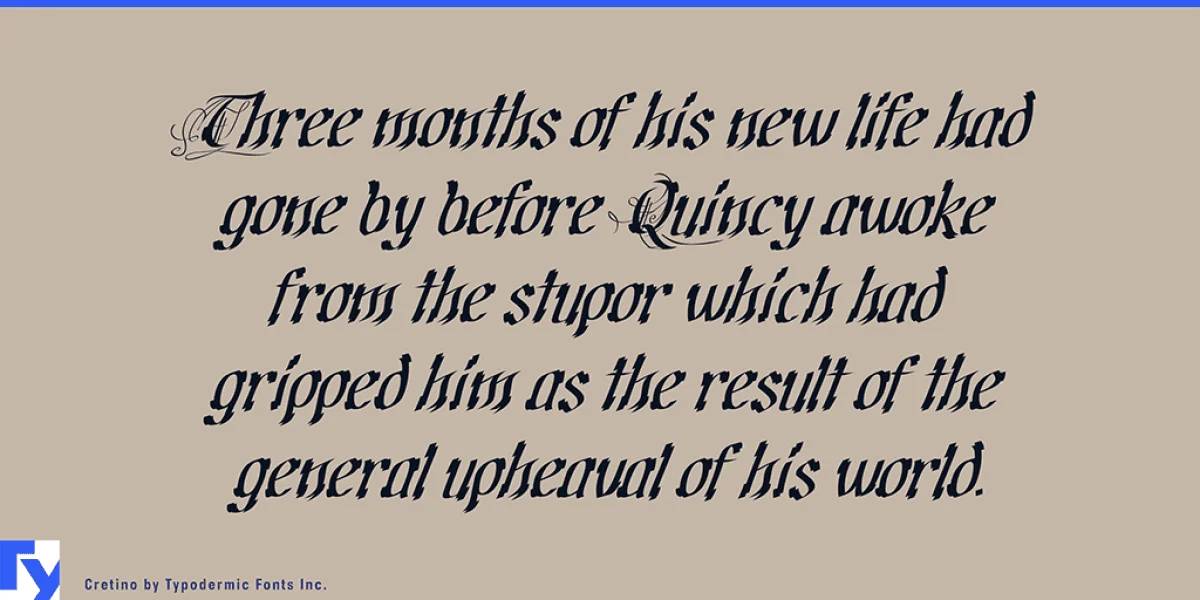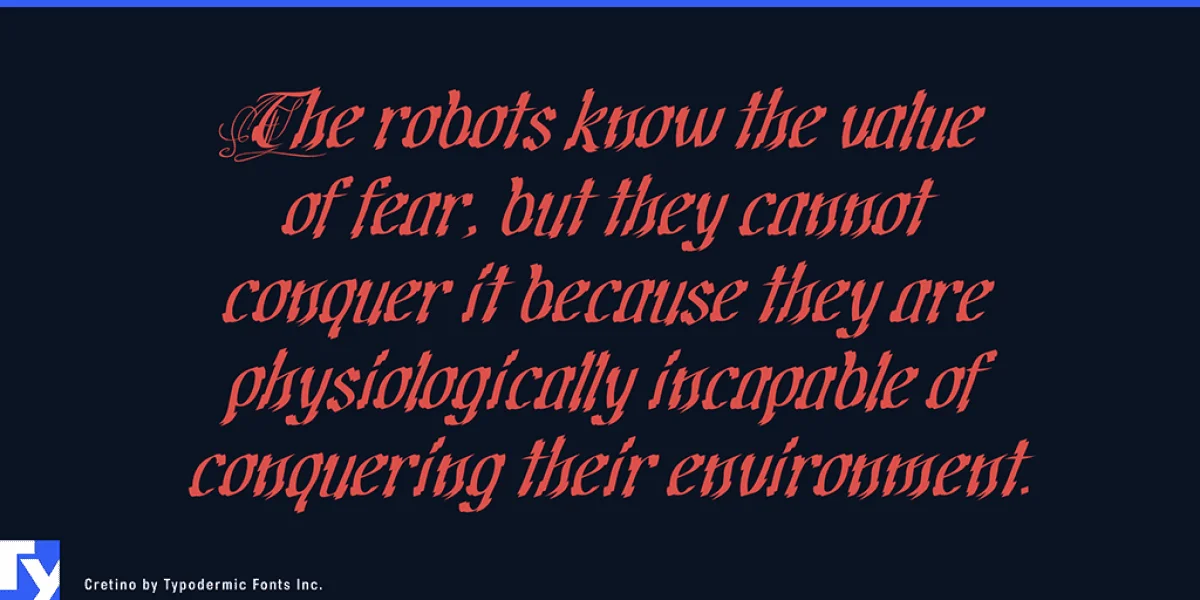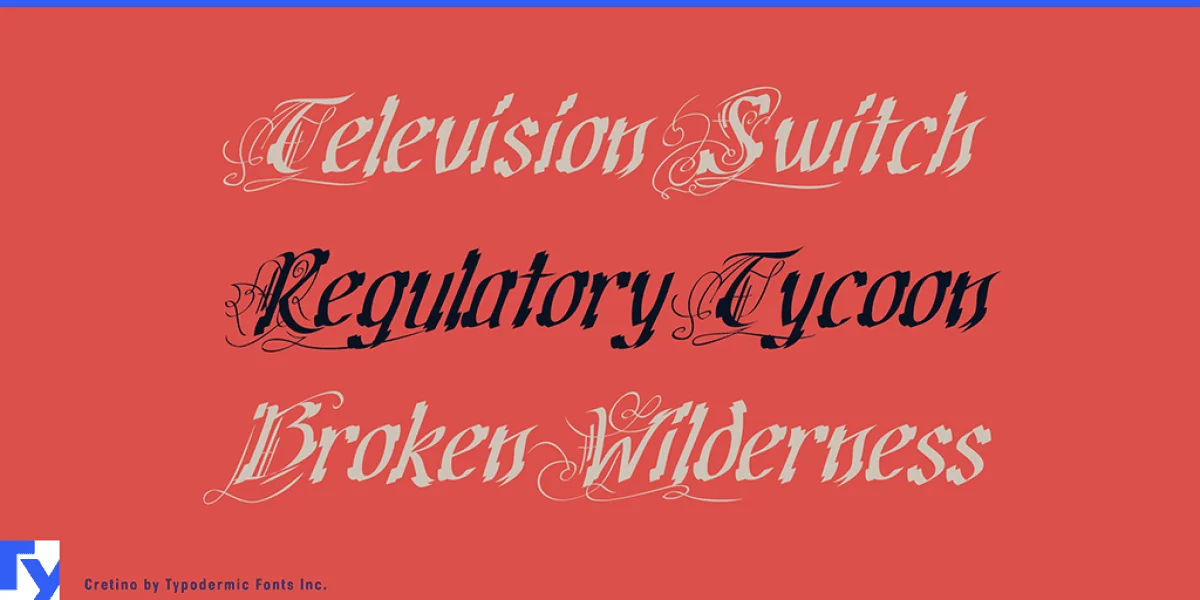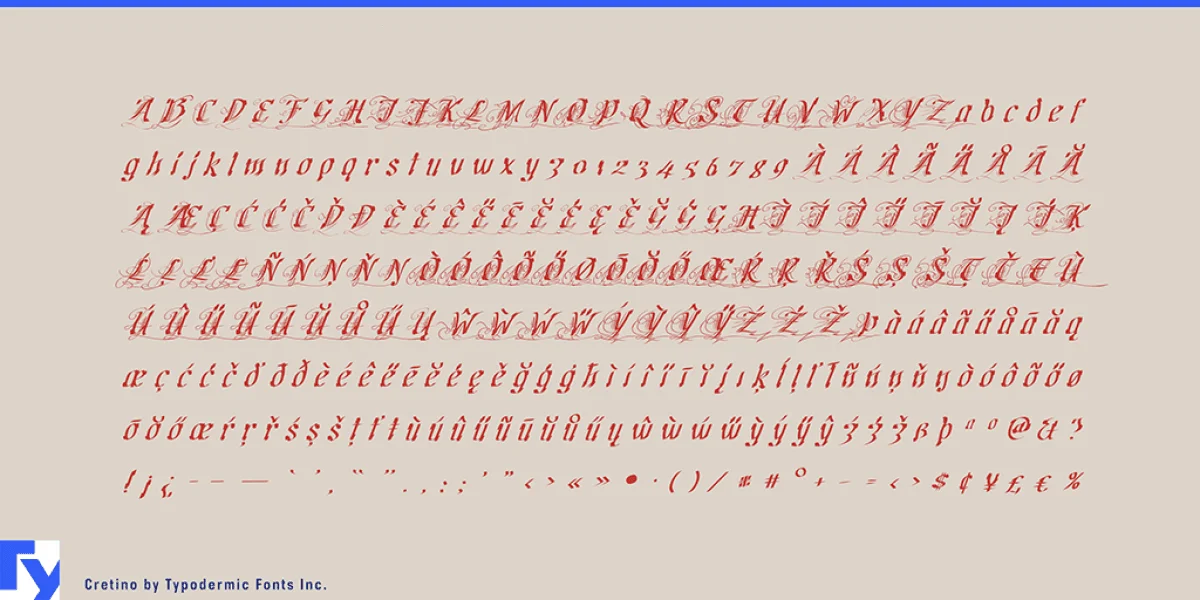
Cretino is a glitzy swash script typeface. It's just so opulent. Take a look at how fancy it is. Oh boy! Most Latin-based European writing systems are supported, including the following languages. Afaan Oromo, Afar, Afrikaans, Albanian, Alsatian, Aromanian, Aymara, Bashkir (Latin), Basque, Belarusian (Latin), Bemba, Bikol, Bosnian, Breton, Cape Verdean, Creole, Catalan, Cebuano, Chamorro, Chavacano, Chichewa, Crimean Tatar (Latin), Croatian, Czech, Danish, Dawan, Dholuo, Dutch, English, Estonian, Faroese, Fijian, Filipino, Finnish, French, Frisian, Friulian, Gagauz (Latin), Galician, Ganda, Genoese, German, Greenlandic, Guadeloupean Creole, Haitian Creole, Hawaiian, Hiligaynon, Hungarian, Icelandic, Ilocano, Indonesian, Irish, Italian, Jamaican, Kaqchikel, Karakalpak (Latin), Kashubian, Kikongo, Kinyarwanda, Kirundi, Kurdish (Latin), Latvian, Lithuanian, Lombard, Low Saxon, Luxembourgish, Maasai, Makhuwa, Malay, Maltese, Māori, Moldovan, Montenegrin, Ndebele, Neapolitan, Norwegian, Novial, Occitan, Ossetian (Latin), Papiamento, Piedmontese, Polish, Portuguese, Quechua, Rarotongan, Romanian, Romansh, Sami, Sango, Saramaccan, Sardinian, Scottish Gaelic, Serbian (Latin), Shona, Sicilian, Silesian, Slovak, Slovenian, Somali, Sorbian, Sotho, Spanish, Swahili, Swazi, Swedish, Tagalog, Tahitian, Tetum, Tongan, Tshiluba, Tsonga, Tswana, Tumbuka, Turkish, Turkmen (Latin), Tuvaluan, Uzbek (Latin), Venetian, Vepsian, Võro, Walloon, Waray-Waray, Wayuu, Welsh, Wolof, Xhosa, Yapese, Zapotec Zulu and Zuni.